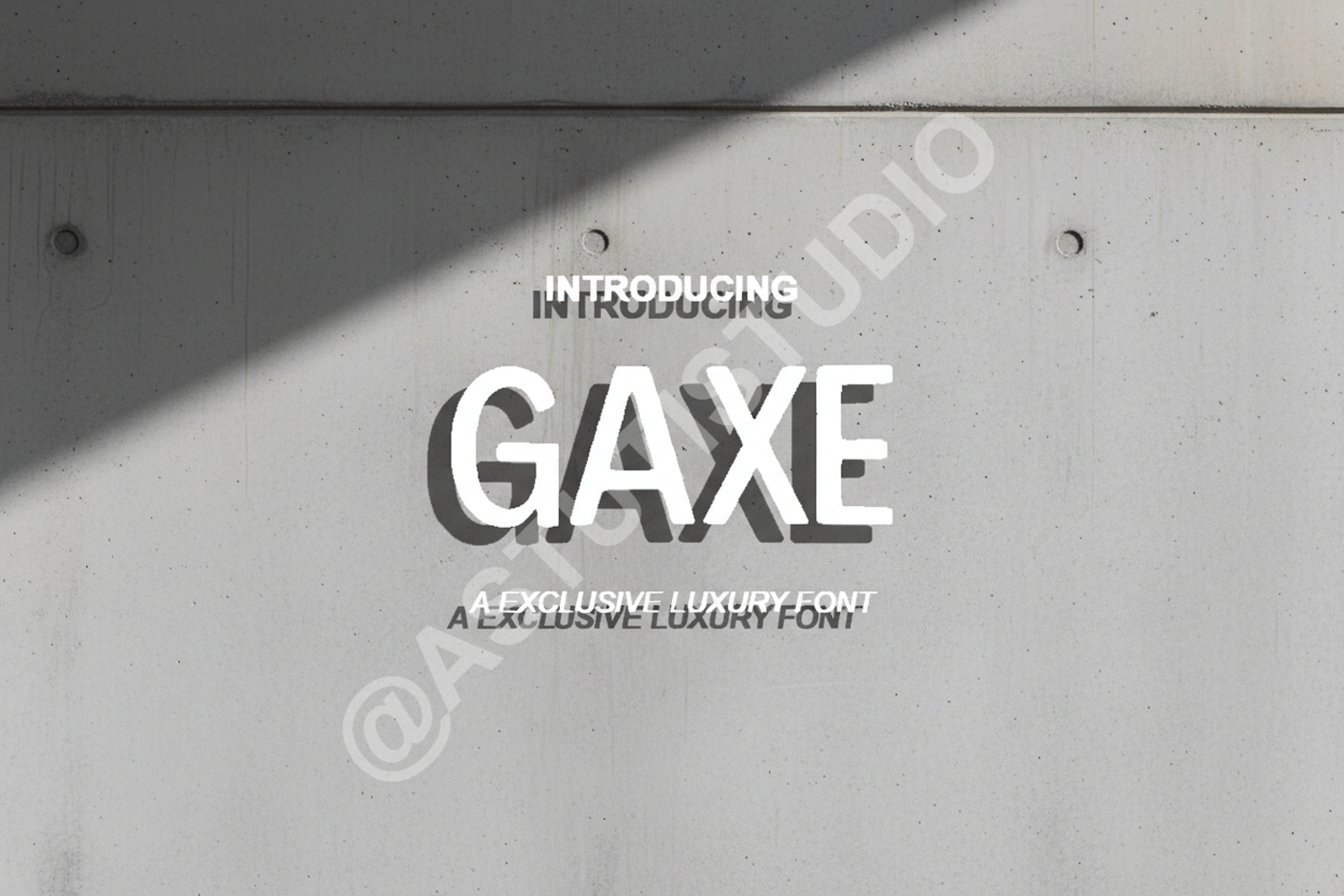
Gaxe - Modern Geometric Display Font
Gaxe
Elevate your creative projects with Gaxe, a premium display font that blends modern geometric precision with a bold, contemporary aesthetic. Designed for designers who demand both high quality and versatility, Gaxe offers a clean and sophisticated look that commands attention without overwhelming your layout. Its balanced proportions and sharp edges make it an essential addition to any professional typography toolkit.
- Full set of uppercase and lowercase characters
- Standard ligatures for seamless flow
- Branding and Identity: Create memorable logos and cohesive brand systems.
- Editorial Design: Perfect for magazine headings, pull quotes, and impactful titles.
- Digital Marketing: Enhance social media graphics, web banners, and digital advertisements.
- Print Media: Ideal for posters, high-end packaging, and business cards.
- Wedding Stationery: Modernize invitations and event signage with a clean, minimalist touch.